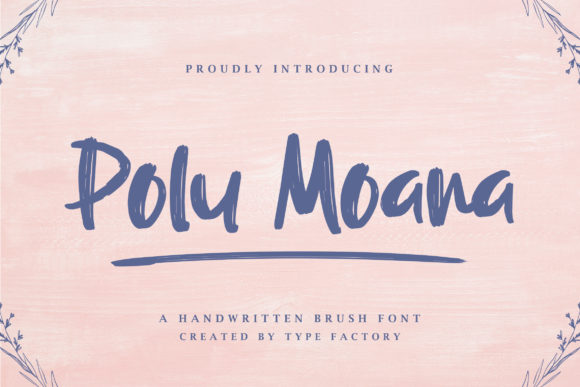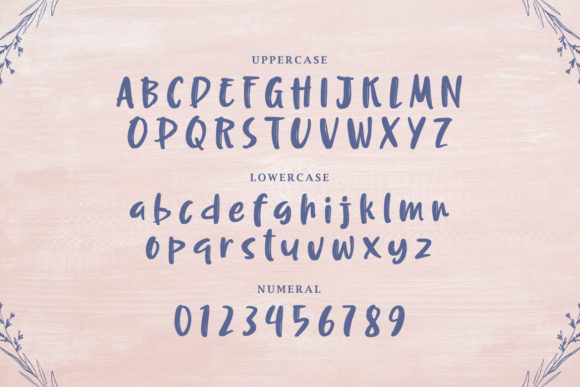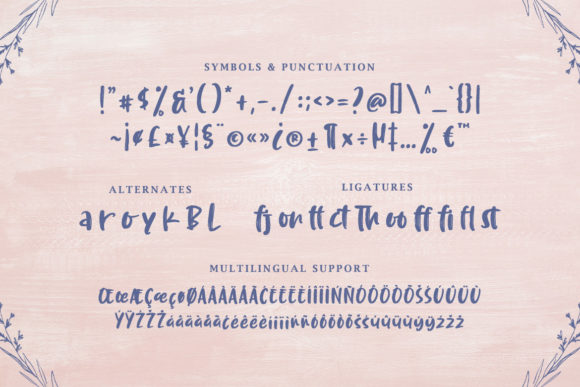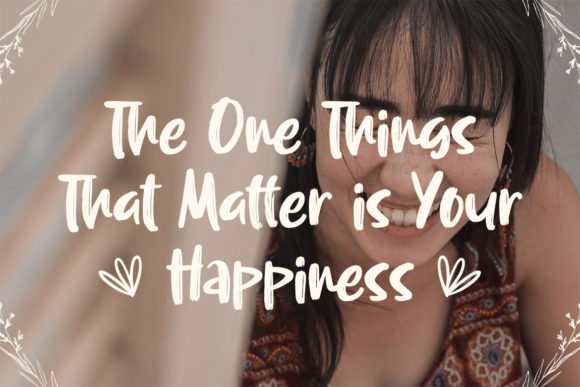
Polu Moana Font
About the Polu Moana Font
Meet Polu Moana Font, a stunning font that brings a touch of elegance and professionalism to any design. Polu Moana is a cool display font defined by playful brushed characters, that radiates summer and positivity.
Use it to add a relaxed vibe to any design project you wish to develop.
Polu Moana thrives in display contexts such as headlines, short titles, logos, and posters where its playful brushed texture adds visual interest. It’s ideal for brands targeting a younger demographic or those wishing to project a fun, summery, or beachy aesthetic. Avoid using it for body text or lengthy paragraphs; its unique character strokes make for poor readability in smaller sizes.
For optimal pairings, consider pairing Polu Moana with a clean sans-serif like Open Sans for body text, providing a strong contrast that balances its playful energy. Alternatively, a more geometric sans-serif, such as Montserrat, adds a modern edge, while a classic serif font like Playfair Display creates a sophisticated, yet playful, combination.
Polu Moana’s core personality is undeniably playful and optimistic, making it perfect for projects related to leisure, tourism, food, and beverage, or anything requiring a lighthearted, summery feel. It’s a font that communicates fun and energy without sacrificing visual appeal.
Polu Moana Font Usage Examples
Polu Moana Font Example